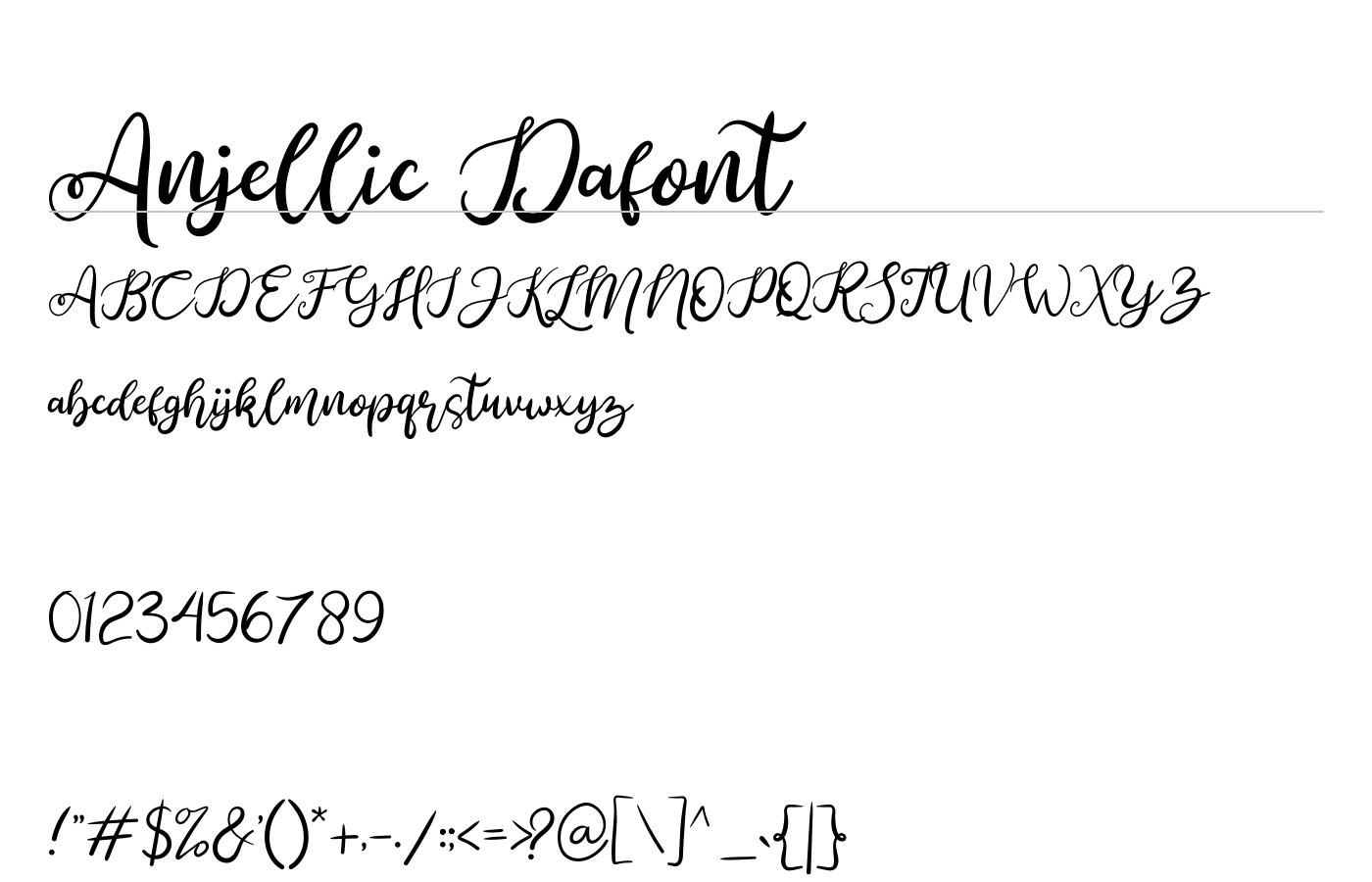
Anjellic Dafont is a graceful and elegant script font with a delicate, hand-drawn feel. It features fluid, connected strokes with a moderate contrast and charming flourishes, making it perfect for adding a personal, sophisticated touch to invitations, branding, and decorative headlines where a stylish yet approachable vibe is desired.
Anjellic Dafont
About Anjellic Dafont
| Font family | Anjellic Dafont |
| Designer | Bluestudio |